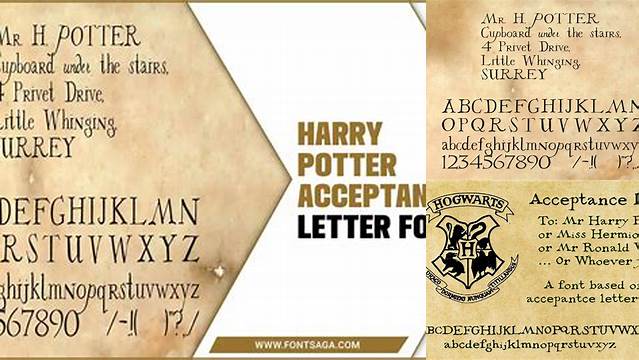
Harry Potter Font: Free Download For Acceptance Letter
So, you're looking to recreate that magical moment when Harry Potter got his Hogwarts acceptance letter, huh? Well, you've come to the right place! We're going to dive deep into everything you need to know about the Harry Potter acceptance letter font and how you can snag it for free. Whether you're planning a themed party, working on a creative project, or just want to add a touch of wizarding world charm to your life, having the right font is key. Let’s get started, guys!
1. What is the Font Used in Harry Potter Acceptance Letters?
Okay, first things first, let's nail down exactly what font we're talking about. The font most closely associated with the Harry Potter acceptance letters is called 'Goudy Handtooled'. This font gives the letter that elegant, handwritten feel, making it look like it was penned by a quill-wielding professor at Hogwarts. However, there are some variations and alternatives you might want to consider, so don't worry if 'Goudy Handtooled' isn't exactly what you're picturing. The important thing is to capture that magical essence, and we’ll explore different options to help you do just that. It’s all about finding the perfect fit for your project, whether it’s for a personal invitation or a grand-scale event. Keep reading, and we’ll explore all the nitty-gritty details!
2. Where Can I Download Goudy Handtooled for Free?
3. Free Alternatives to Goudy Handtooled for Harry Potter Letters
Alright, so maybe 'Goudy Handtooled' is proving elusive or a bit pricey. No worries! There are tons of fantastic free alternatives that will give you that same magical feel. Think about fonts with a slightly vintage, calligraphic, or handwritten style. Some great options include 'Mrs. Eaves', 'IM Fell English', and even some script fonts like ' চ্যানেলের Script'. The key is to find a font that has a touch of elegance and looks like it could have been used by a Hogwarts professor. Experiment with different fonts and see what resonates with you. You might even find that a different font works better for your particular project! Remember, the goal is to capture the essence of the Harry Potter world, and there are many ways to do that. So, let’s keep exploring these amazing alternatives.
6. Creating a Harry Potter Acceptance Letter Template
Now that you've got your font sorted, let's talk about creating a Harry Potter acceptance letter template. This is where the fun really begins! You'll want to replicate the look and feel of the original letter as closely as possible. This means using parchment paper (or a digital equivalent), a specific layout, and, of course, the right wording. You can find tons of templates online, or you can create your own from scratch. Key elements include the Hogwarts crest, the recipient's name and address in green ink, and the iconic opening line: "We are pleased to inform you that you have been accepted at Hogwarts School of Witchcraft and Wizardry." We’ll break down each component in more detail, so you can craft the perfect magical invitation. Get ready to unleash your inner wizarding world designer!
30. The Enduring Appeal of Harry Potter Font and Style
The Harry Potter series has had a profound impact on popular culture, and its iconic font and style are a big part of that legacy. The handwritten, elegant feel of the font evokes a sense of magic and tradition that resonates with fans of all ages. Whether you're creating an acceptance letter, designing a party invitation, or working on a personal project, the Harry Potter font can add a touch of magic to your designs. Let’s celebrate the enduring appeal of this font and continue to create magical experiences!